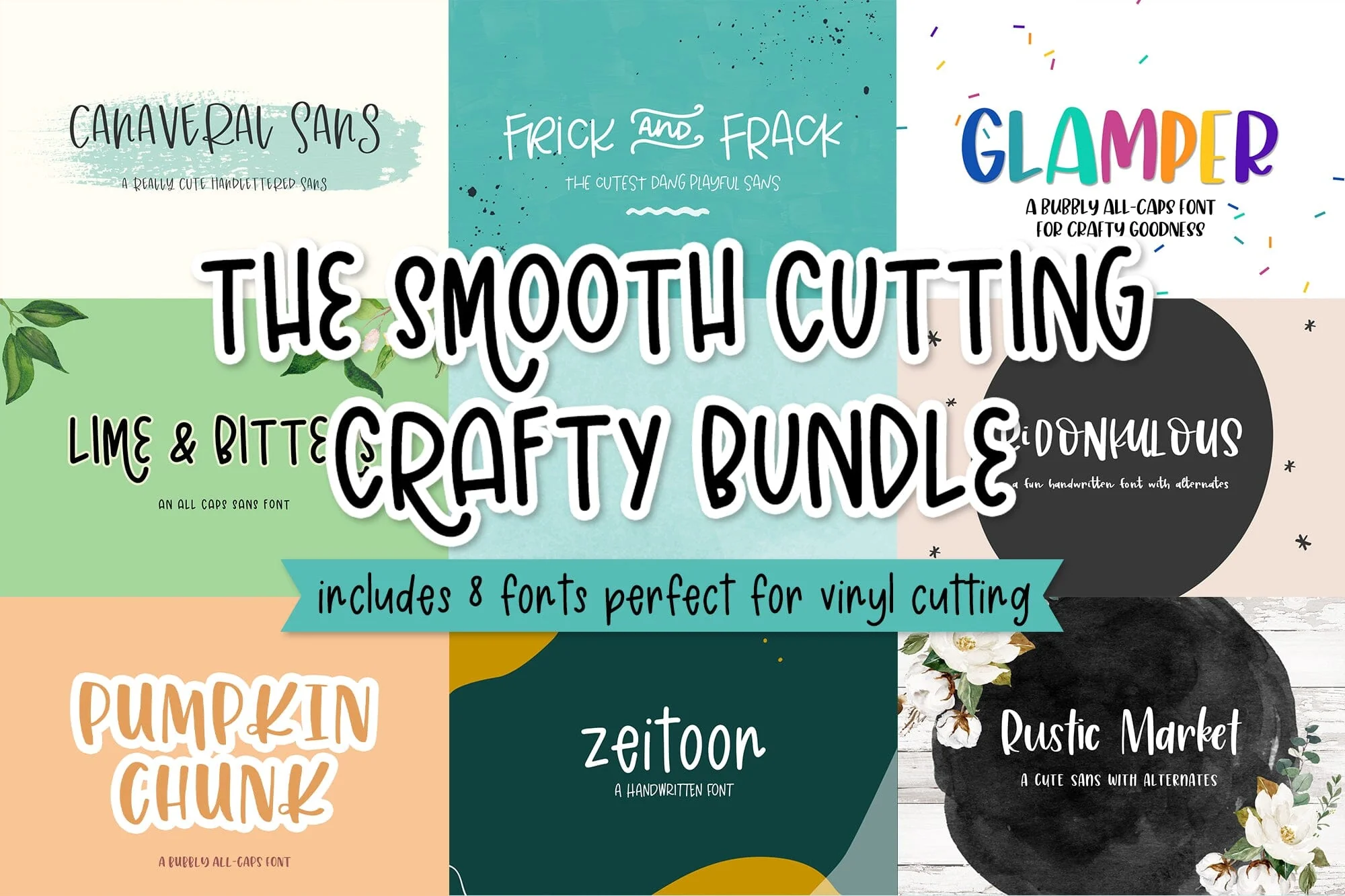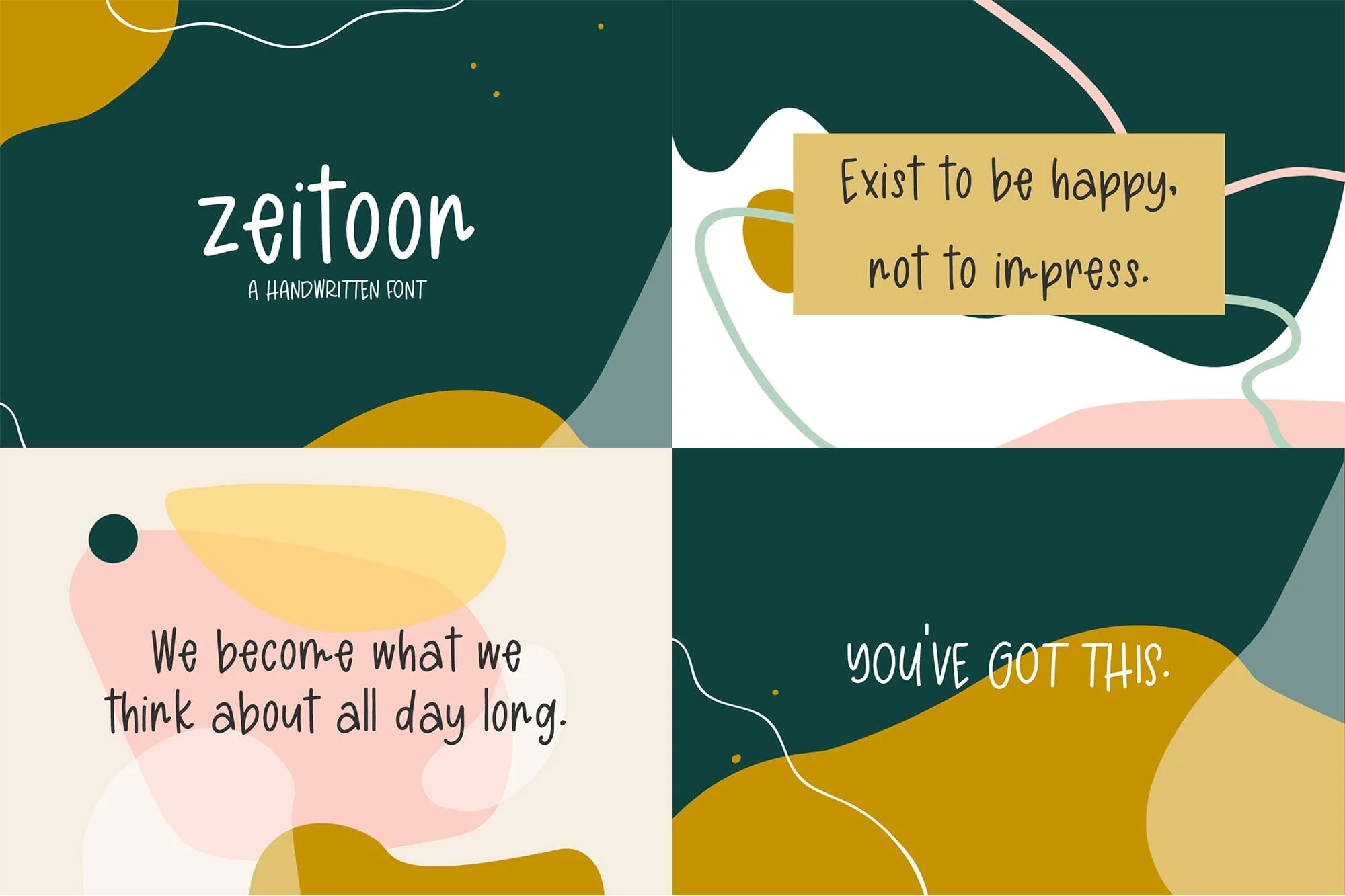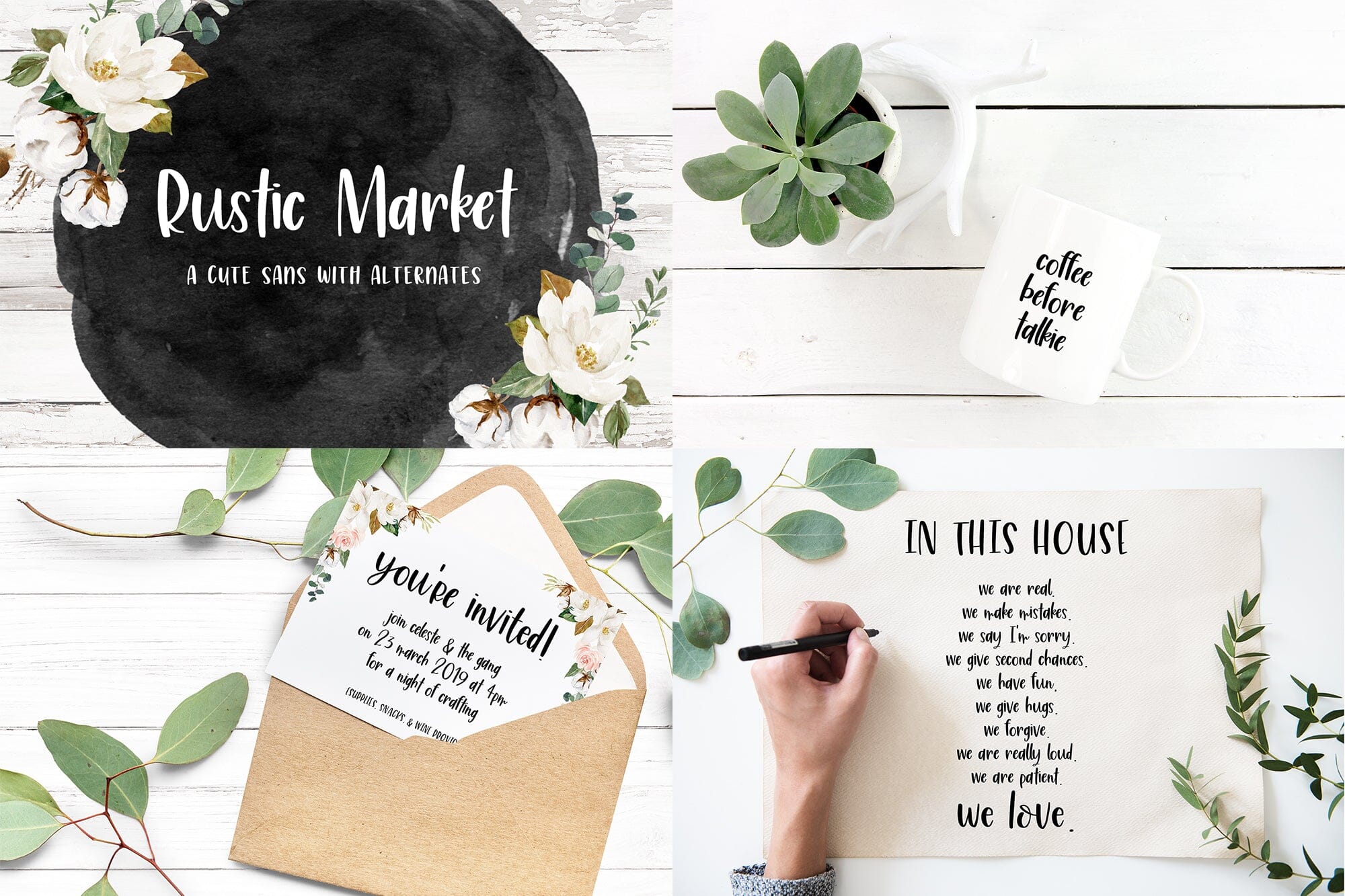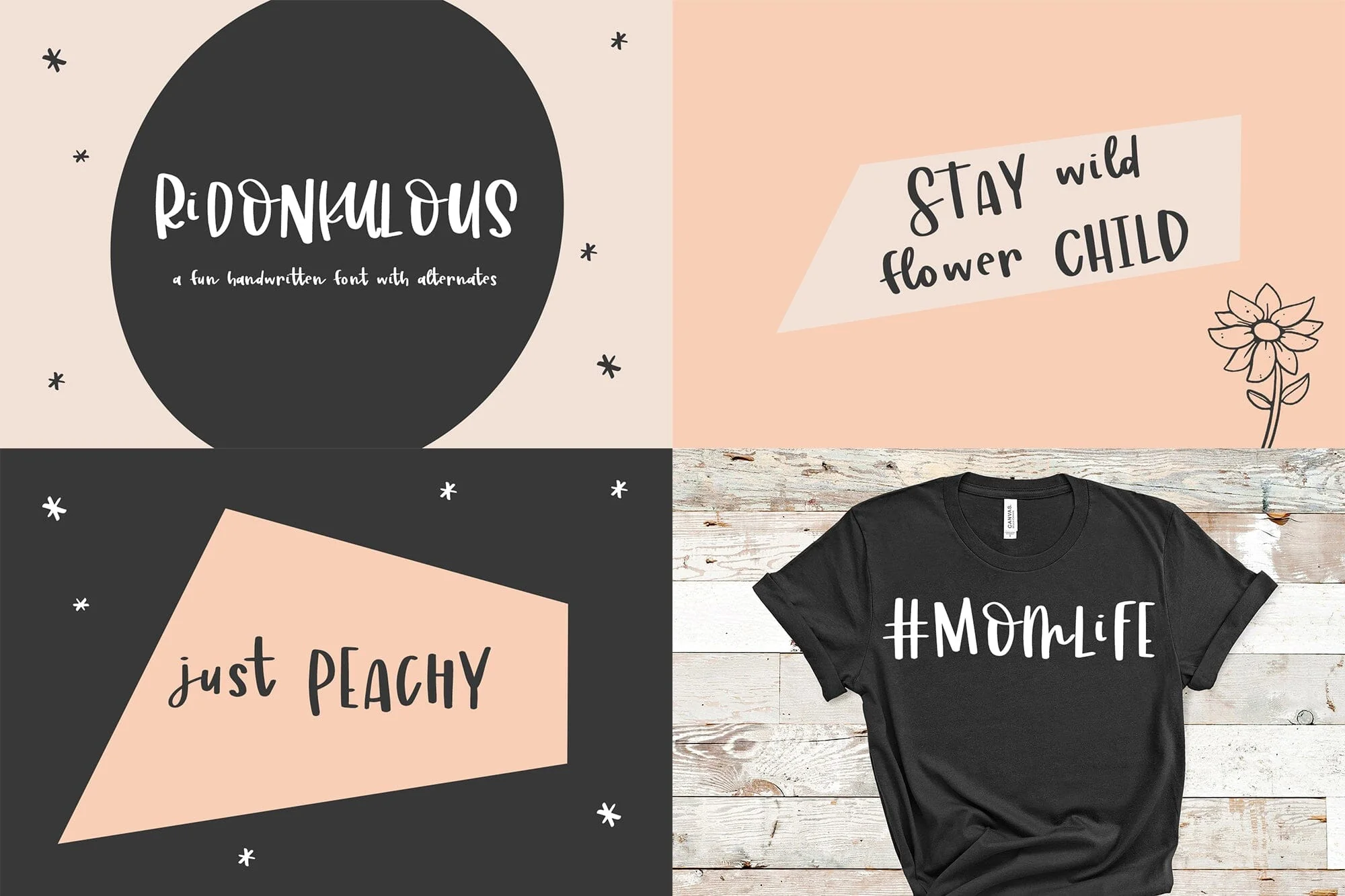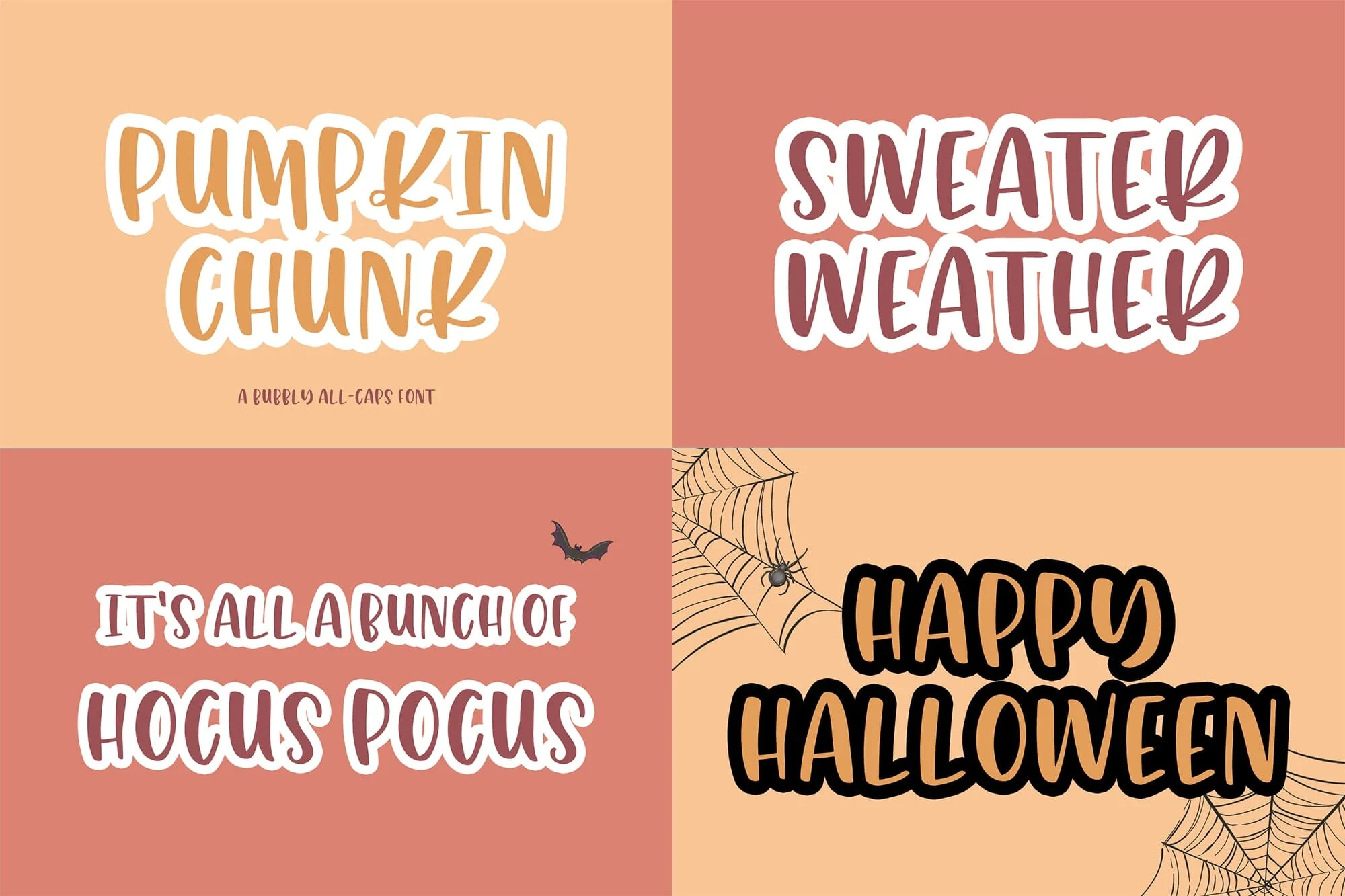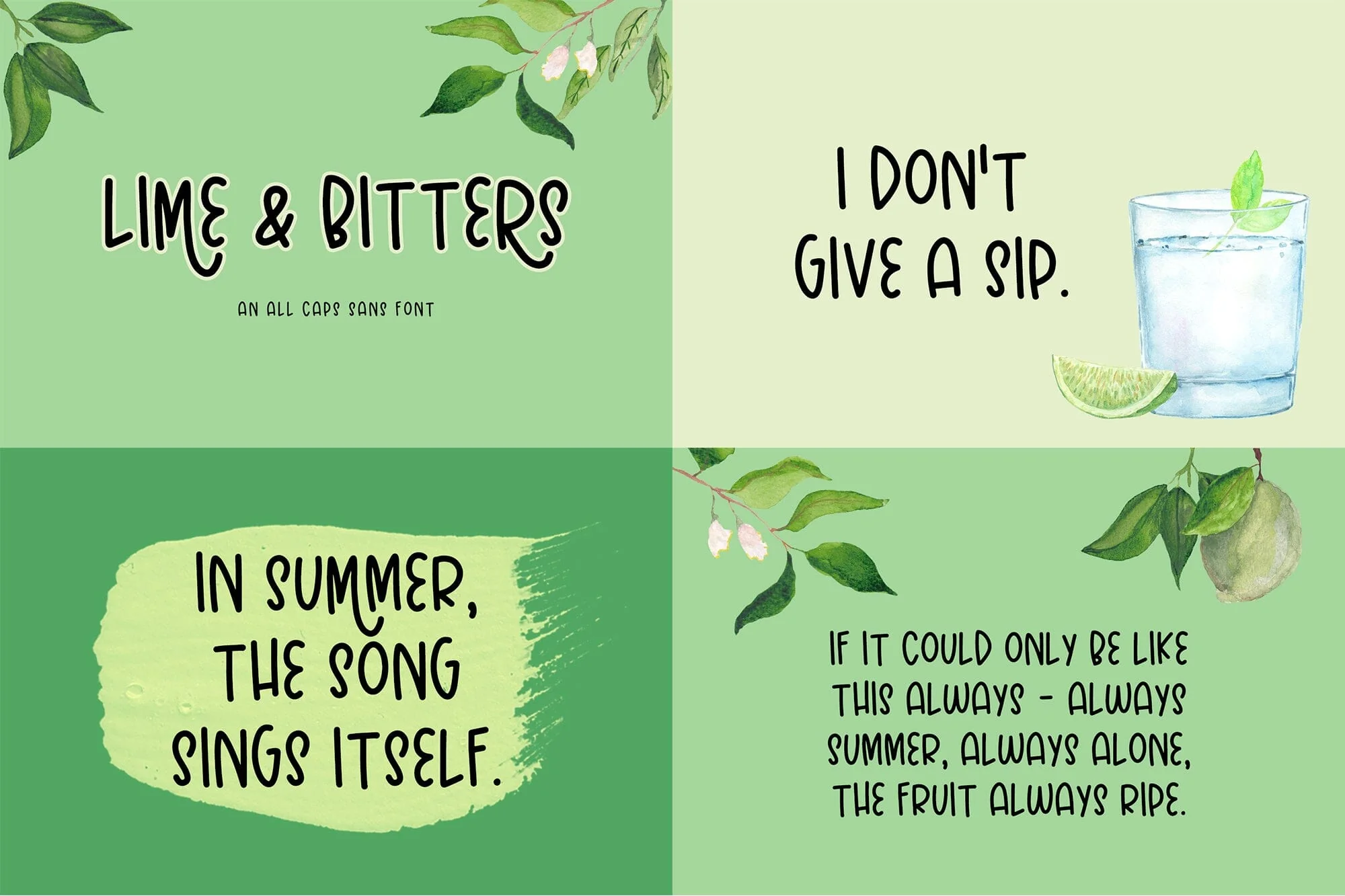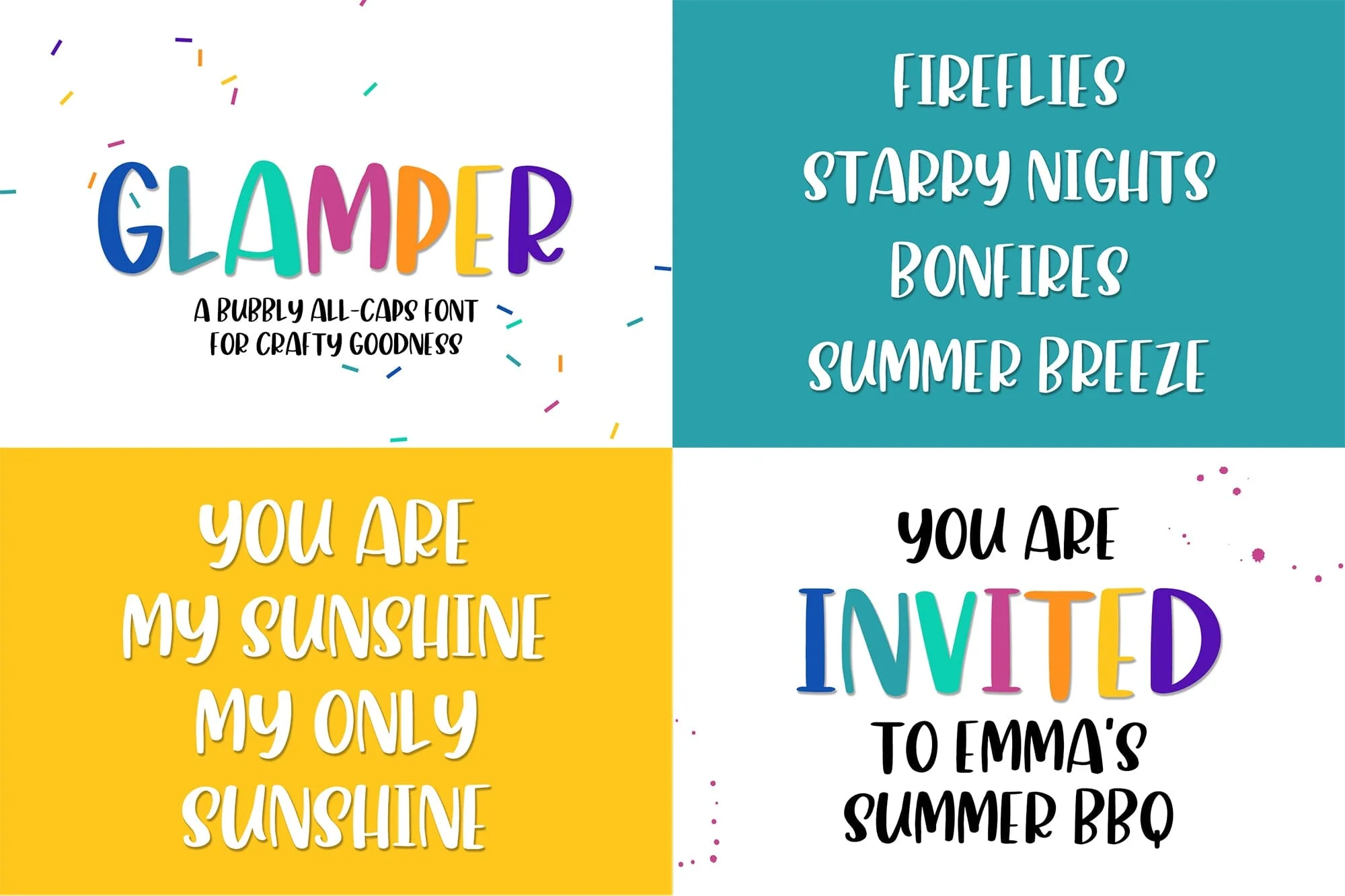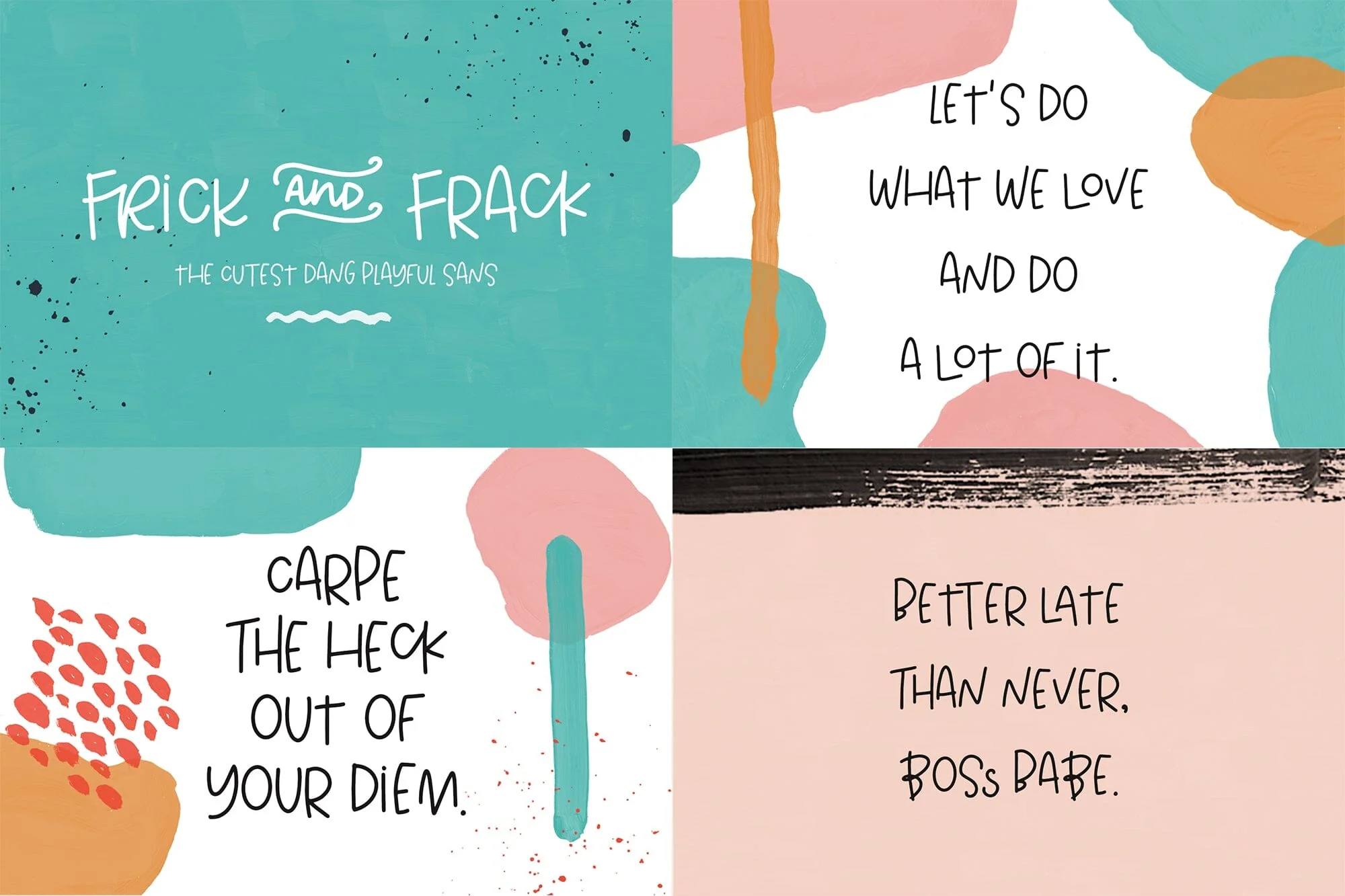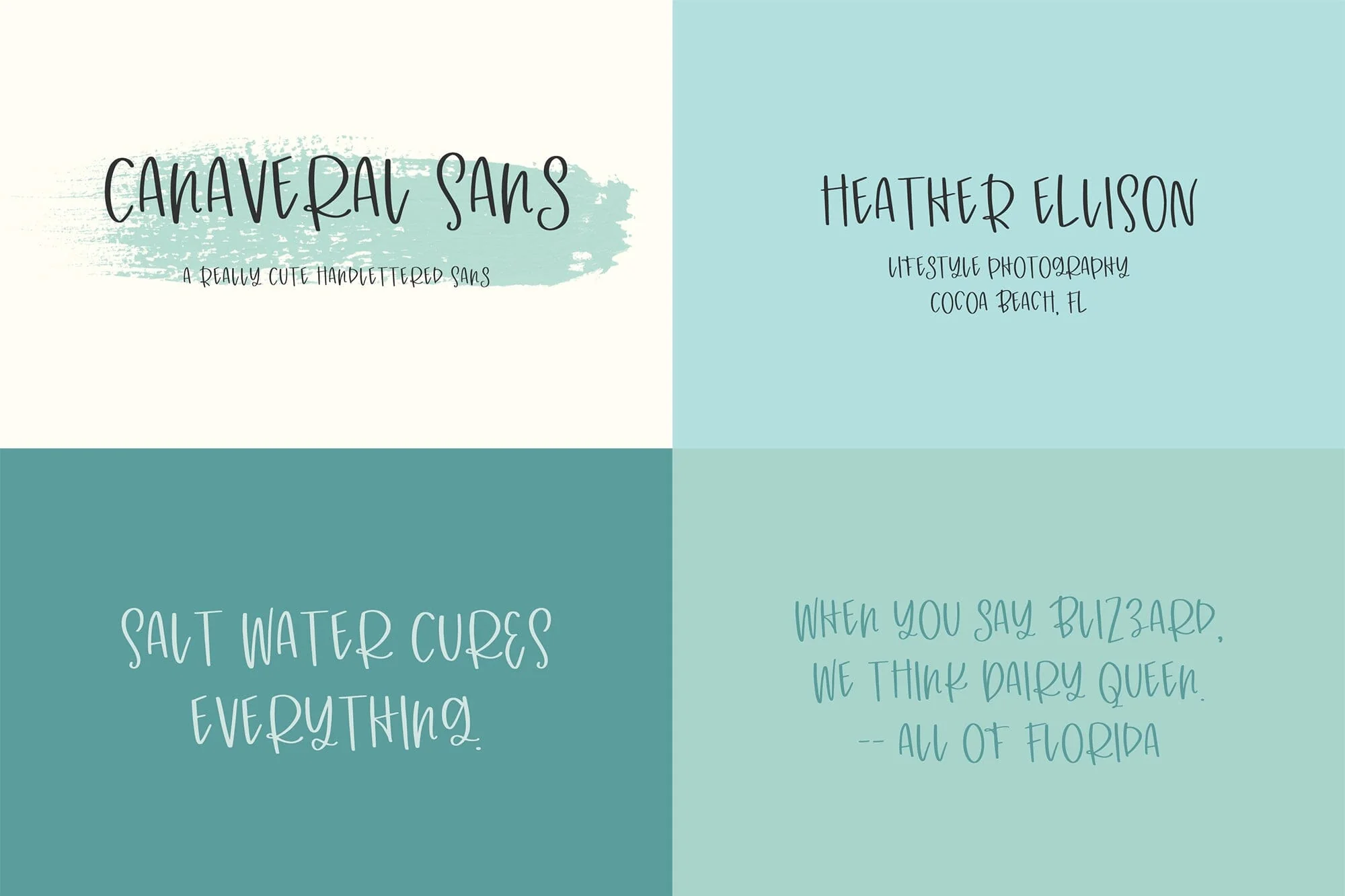
The Smooth Cutting Crafty Font Bundle
This font bundle is curated especially for crafters! Enjoy 8 fonts super fun fonts with a smooth edge, perfect for vinyl cutting & weeding projects of all types. All handlettered, these fonts will be perfect for logos & branding, website elements, quote graphics, and crafting projects on your Cricut or Silhouette machine!
This font bundle includes a selection of cute, whimsical sans fonts:
- Ridonkulous Sans Font
- Pumpkin Chunk Sans Font
- Glamper Sans Font
- Zeitoon Sans Font
- Lime Bitters Sans Font
- Canaveral Sans Font
- Rustic Market Sans Font
- Frick and Frack Sans Font